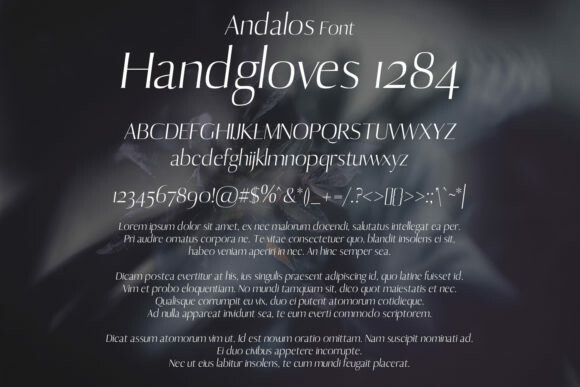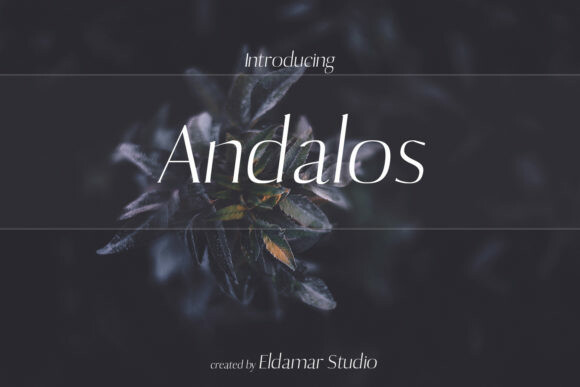
Andalos Font
Andalos Font is a modern, thin and delicate serif font. This original look will appeal to a wide range of crafty ideas, from letterheads and titles, to stationery.